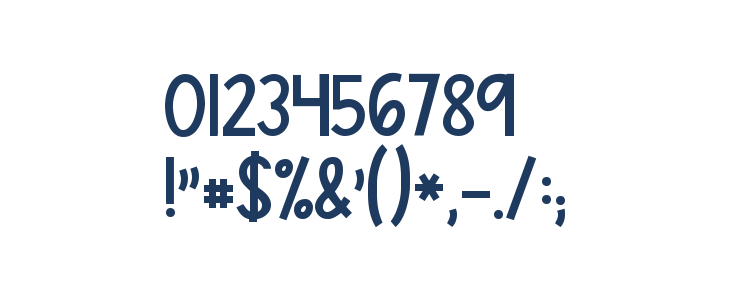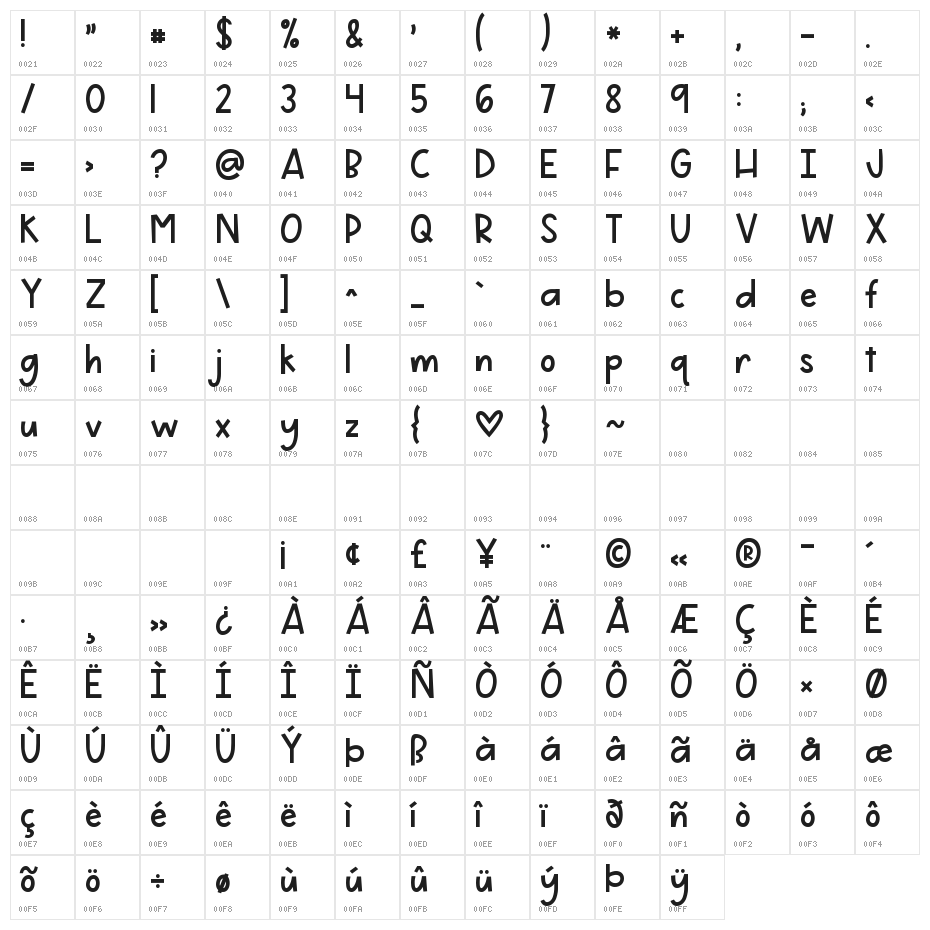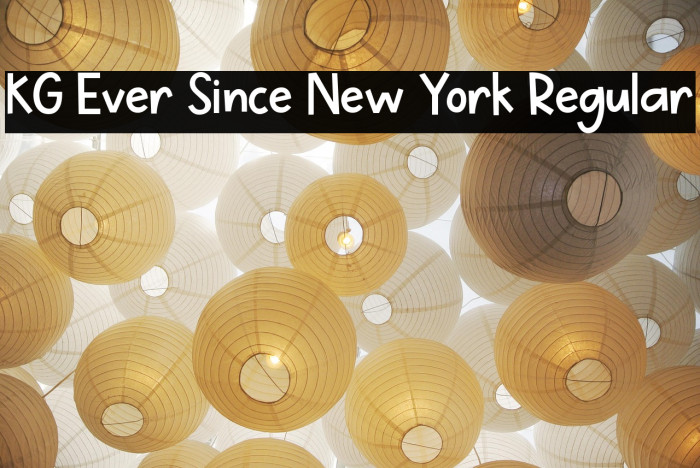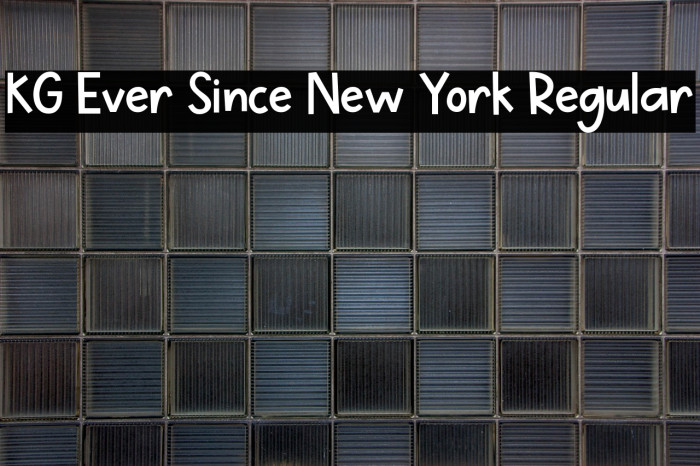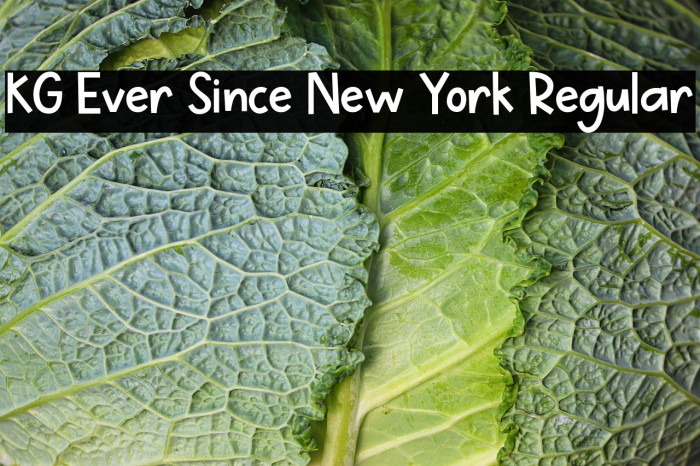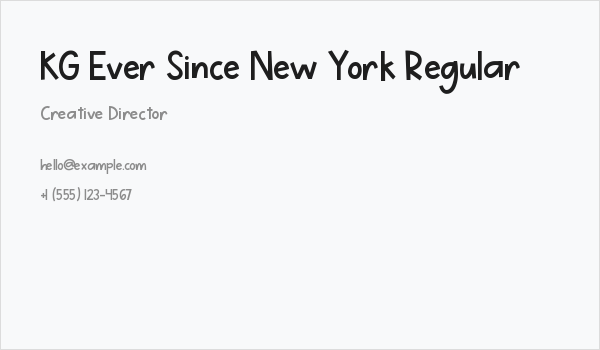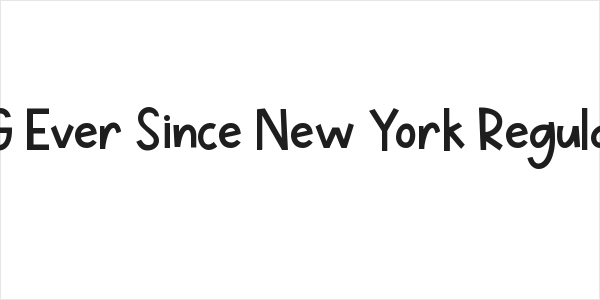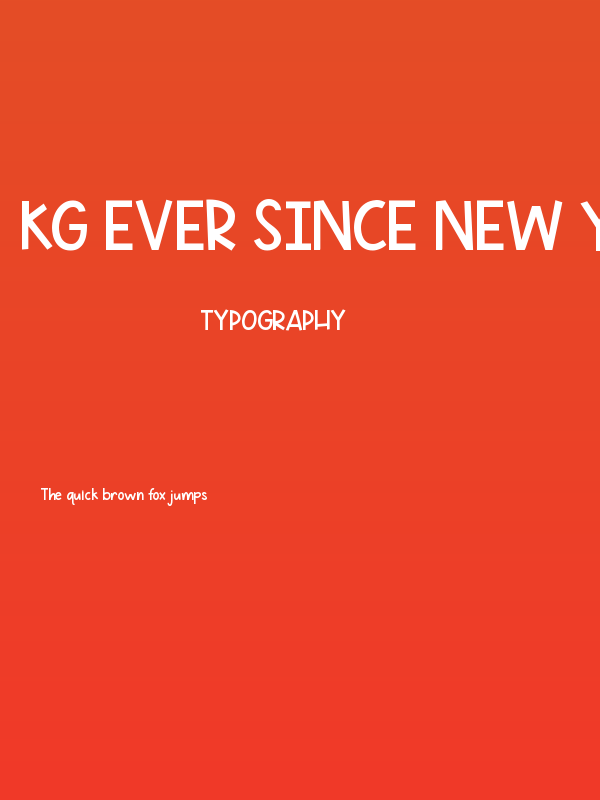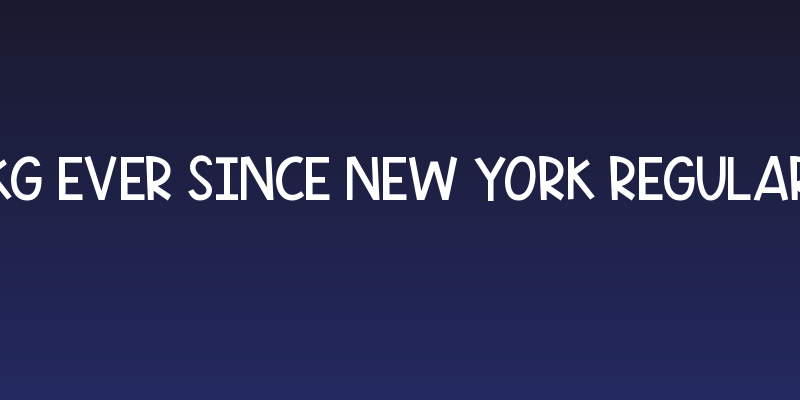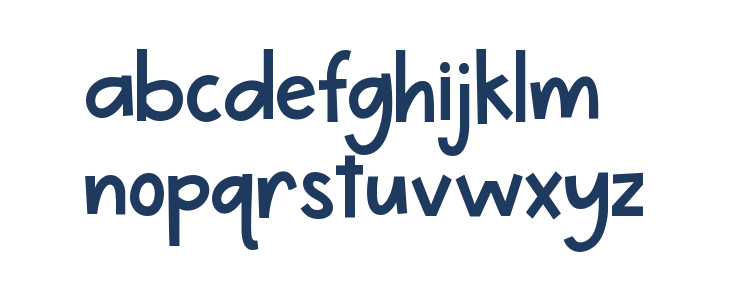
KG Ever Since New York Regular Font
KG Ever Since New York Regular Description
This font features a playful and casual handwritten style, characterized by its bold and rounded letterforms. The uppercase letters are slightly taller and more angular, while the lowercase letters maintain a consistent roundness, giving the font a friendly and approachable appearance. The numerals are clear and easy to read, with a uniform thickness that matches the letters. Special characters are well-integrated, maintaining the overall aesthetic. The font's informal style makes it suitable for creative and fun projects, adding a personal touch to any design.
| Proposed Projects | Ideal for children's books, greeting cards, posters, and playful branding. |